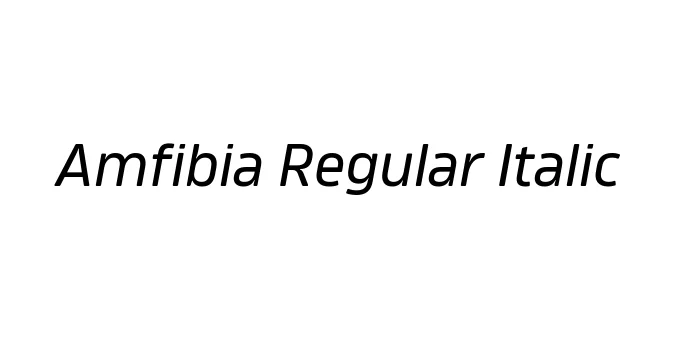
Amfibia Regular Italic
Designed by Roch Modrzejewski
Amfibia Regular Italic is a distinguished member of a larger humanist sans-serif family designed to bridge the gap between technical precision and organic fluidity. Created by Roch Modrzejewski for ROH Creative, this typeface is characterized by its high x-height and open counters, which ensure exceptional legibility even in challenging reading environments. The italic weight is a true cursive construction, offering a rhythmic, calligraphic flow that provides a sophisticated contrast to the upright weights while maintaining a cohesive visual language.
Functionally, Amfibia was developed with modern communication in mind, making it highly versatile for both digital and print applications. Its clean lines and balanced proportions make it an excellent choice for complex typographic hierarchies. The Regular Italic variant specifically excels in adding emphasis and personality to text without compromising the professional and neutral tone that the Amfibia family is known for. It remains a popular choice for designers seeking a contemporary look with a touch of humanist warmth.
Amfibia Regular Italic Best Uses
Ideal for pull-quotes, subheadings, and adding stylistic emphasis in magazines or journals.
Perfect for professional brand messaging and corporate documentation that requires clarity.
Highly legible for mobile application text and website body copy on high-density screens.
Adds a sophisticated touch to brochures, newsletters, and promotional advertisements.